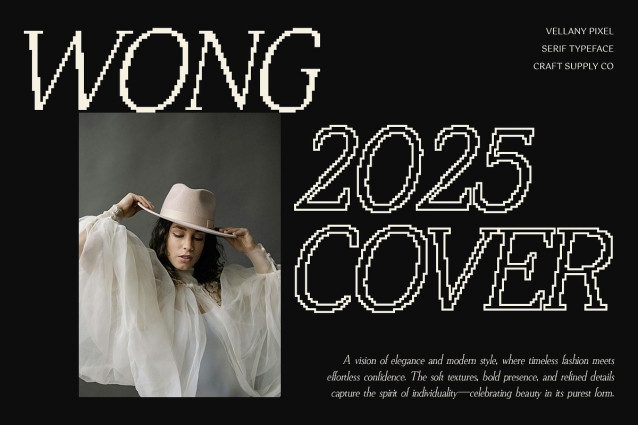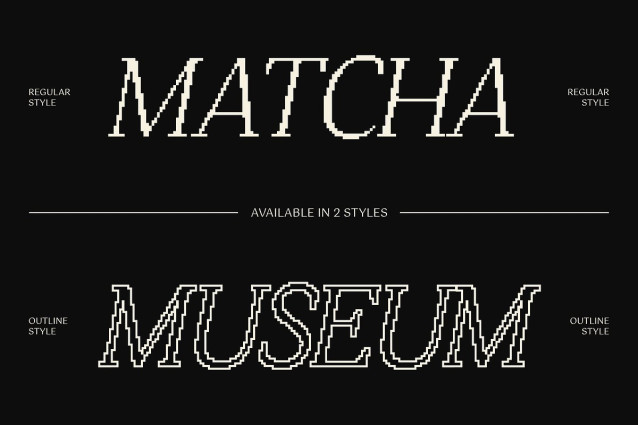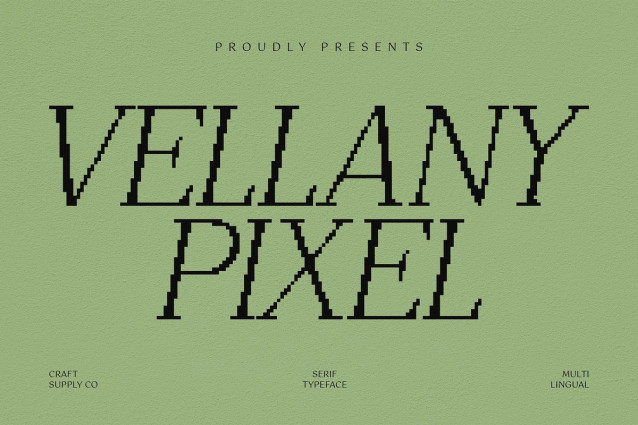
Vellany Pixel Font
Vellany Pixel Font: Elegance with a Digital Edge Modern Serif with Pixel Precision This is a modern serif font that blends timeless elegance with a sharp, digital-inspired pixel style. Its clean, structured forms communicate refinement and professionalism, while the pixelated edge adds a contemporary twist that makes it stand out in any setting. Minimalist Yet Stylish Designed with simplicity in mind, Vellany Pixel carries a minimalist aesthetic that doesn’t sacrifice character. The subtle pixel effect introduces texture and personality, making it both stylish and distinctive, ideal for projects that need a balance of clarity and uniqueness. Sharp Edges for Distinctive Visuals The pixel styling sharpens each character, giving your designs a precise and modern look. This crisp detail makes this font perfect for display settings where text needs to leave a strong and lasting impression. Versatile for Editorial and Branding Use From editorial spreads and branding identities to creative layouts and posters, adapts seamlessly to diverse design applications. Its professional serif base paired with its digital edge ensures that your projects feel both sophisticated and fresh. Download Type Speciment: — What you get : – Vellany Pixel Regular – Vellany Pixel Outline Features : – Uppercase and lowercase characters – Numerals and Punctuation (OpenType Standard) – Accents (Supports Multilingual Characters) – PUA Encoding — You can use this typeface without needing any specialized software. — If you have any inquiries or need assistance, please feel free to contact us. We appreciate your support in enhancing your creative projects! Best regards, Craft Supply Co.